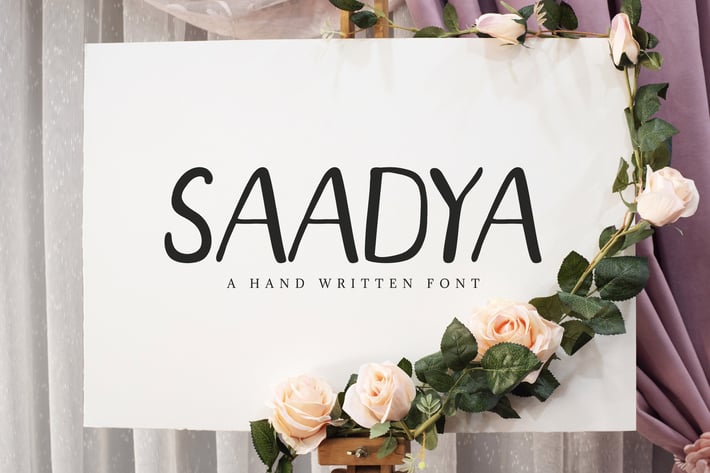
Saadya Sans Serif Font
Saadya is a cute, quirky and versatile style handmade font that will elevate a wide range of design projects to the highest level! It contains uppercase, lowercase, number, punctuation, symbols and support multilingual. Saadya will be perfect for packaging, presentations, logo, headlines, lettering, posters, branding, quotes, titles, magazines headings, web layouts, advertising, invitations, packaging design, books, and nearly any creative design.
Saadya Font Features:
- Uppercase Letters
- Lowercase Letters
- Support Multilingual ( Latin Supplement + Latin Extended A)
- ABCDEFGHIJKLMNOPQRSTUVWXYZ
- abcdefghijklmnopqrstuvwxyz
- 0123456789
- !"#$%&'()*+,-./:;?@[\]^_`{|}~
- ¥ÀÁÂÃÄÅÈÉÊËÌÍÎÏÑÒÓÔÕÖÙÚÛÜà
- áâãäåèéêëìíîïñòóôõöùúûüýÿỲ€